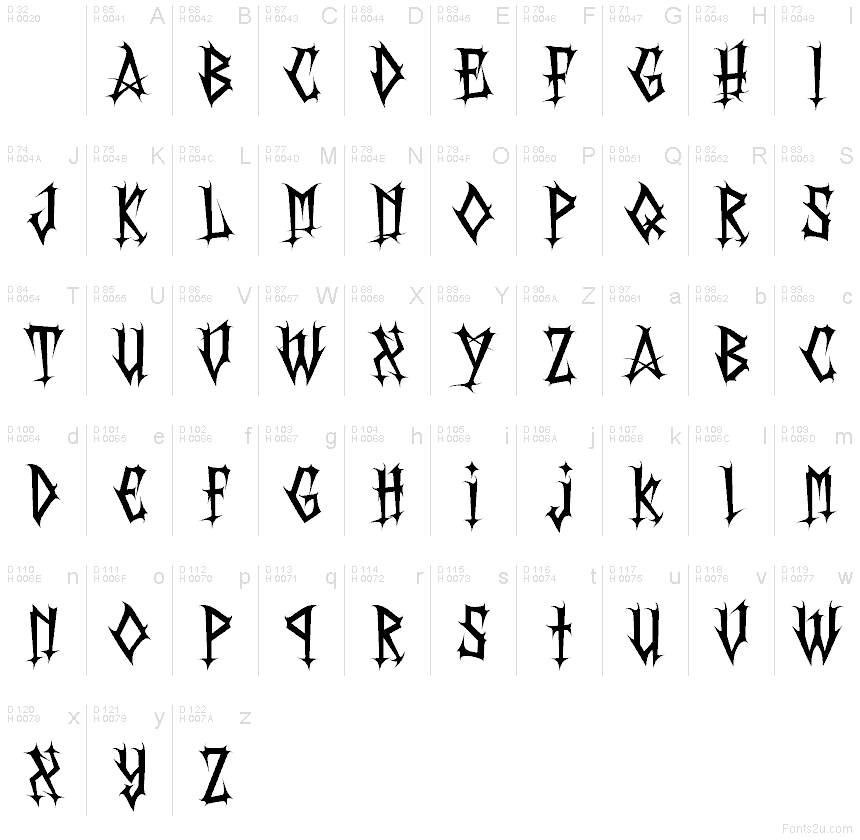
CS Wendigo Regular Demo
CS Wendigo font from Craft Supply Co. is a free scary display font with a condensed structure. Its style reflects dark medieval gothic influences and the letters appear edgy with sharp angular elements present at every corner.
The distressed characteristic sets this font apart and makes it suitable for dark music album covers or online stores, movies about vampires, warriors, or ancient eras. Add it as text on product packaging to make your products truly stand out on store shelves.